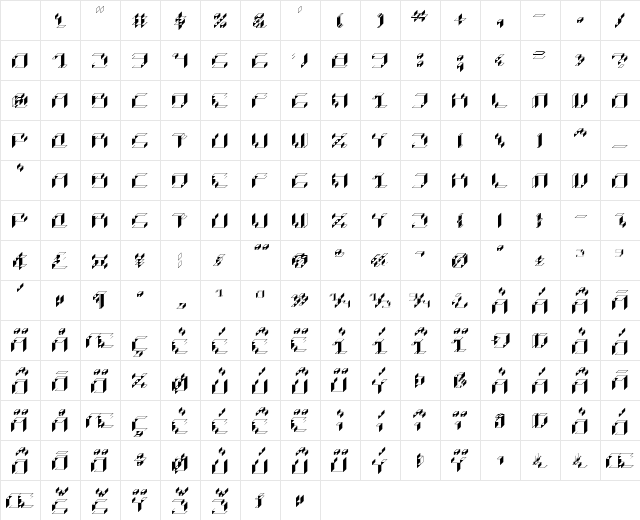
Complete Paper Cube - Box version Regular glyph index. Displaying only characters natively supported by Paper Cube - Box version Regular font.
Paper Cube - Box version is a composed and adaptable typeface that performs quietly and consistently across a wide range of design contexts.